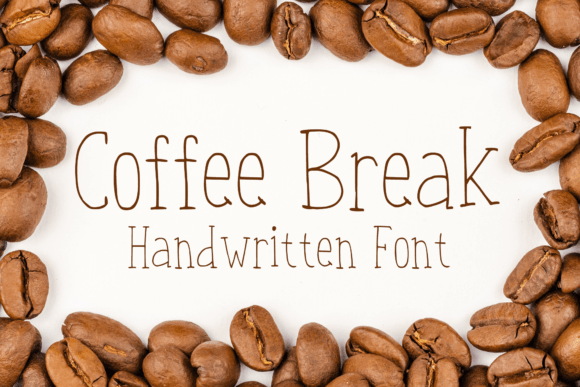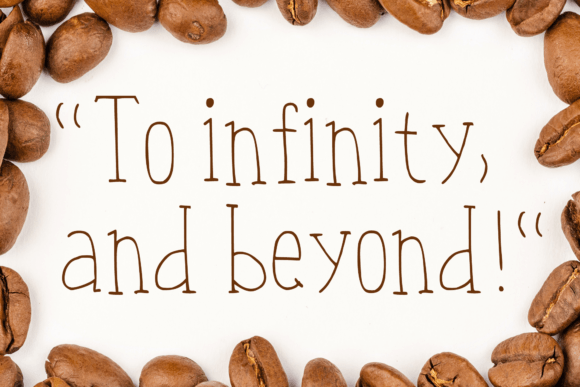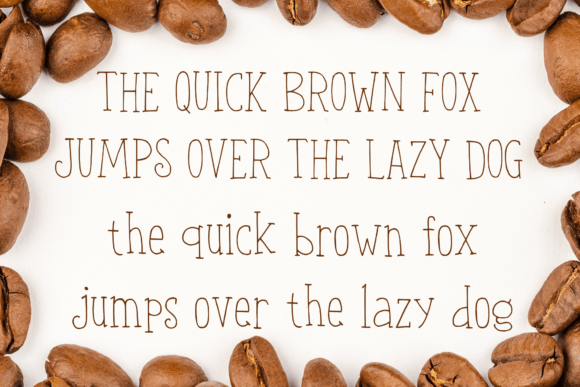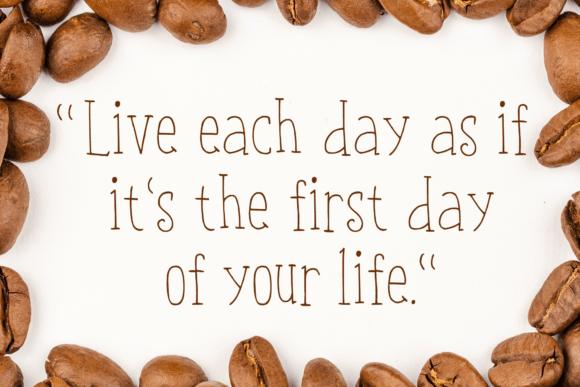
About Coffee Break Font
Coffee Break is a thin and versatile handwritten font that brings a relaxed and casual feel to any project. It’s the perfect choice for designers who want to create friendly, approachable, and stylish designs. Whether you’re working on t-shirts, kids’ books, greeting cards, or posters, Coffee Break will quickly become your go-to font.
Handwritten and Relaxed Style
Coffee Break features a clean, handwritten look with thin, balanced strokes. The letters feel light and effortless, as if they were jotted down over a cup of coffee. This natural style adds authenticity and warmth to your designs.
Its simplicity makes it stand out without being overwhelming. The characters have just the right amount of personality to feel handcrafted, while still staying clear and easy to read.
Perfect for Many Uses
One of the best things about Coffee Break is how adaptable it is. Here are just a few ideas for how you can use it:
T-Shirts: Create fun and casual apparel with quotes and sayings.
Kids’ Books: Make your stories more engaging with a friendly font.
Stickers: Design eye-catching stickers for planners, scrapbooks, or packaging.
Posters: Add a clean, modern feel to promotional materials.
Greeting Cards: Share warm messages with a handwritten touch.
Labels: Give product packaging a personal, homemade vibe.
Coffee Break works well for any design that needs a casual and approachable look.
Coffee Break was created to be beginner-friendly and highly flexible. You can easily adjust the weight, size, and spacing of the letters in any design software. It looks great in all caps for headlines or in lowercase for longer text.
The font pairs beautifully with sans-serif or serif typefaces to create contrast. You can also combine it with playful illustrations or colorful backgrounds to make your designs stand out even more.
Tips for Great Results
Here are a few suggestions to get the most out of Coffee Break:
Keep It Simple: Use minimal colors and clean layouts to highlight the font’s natural style.
Mix and Match: Combine with bold fonts to create visual hierarchy.
Try Different Sizes: Use large letters for titles and smaller ones for body text.
Use Contrast: Pair with bright colors to make the thin lines pop.
These techniques will help your designs look polished and professional.
A Font That Feels Personal
Coffee Break isn’t just another handwritten font. It’s a way to bring comfort, authenticity, and creativity to everything you make. From relaxed branding to heartfelt messages, this font adds a warm and inviting feel that people connect with.
If you’re looking for a versatile, modern handwritten font that feels like a friendly note, Coffee Break is the perfect choice. Let it inspire you to create designs that feel genuine and memorable.